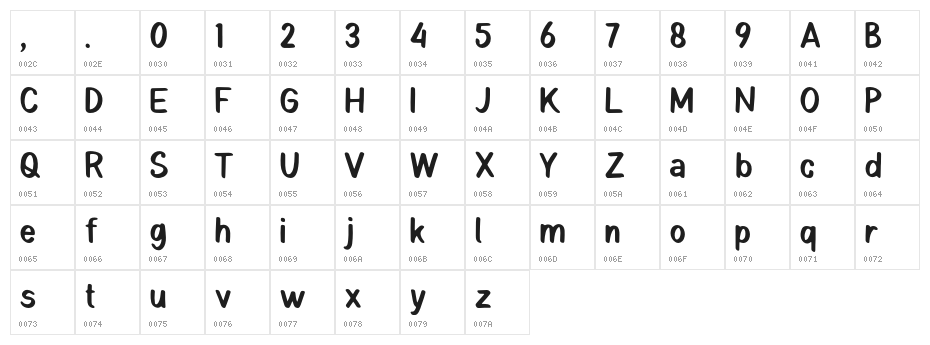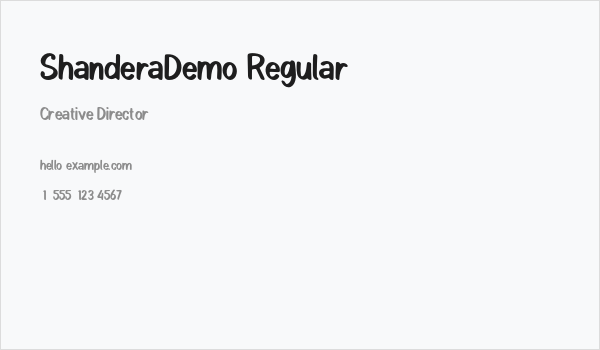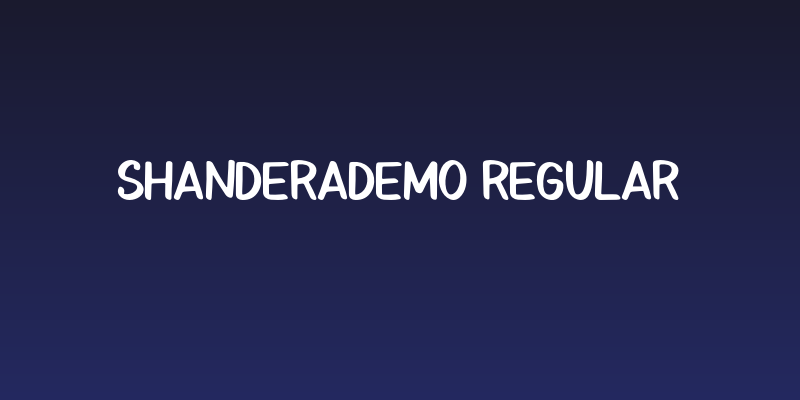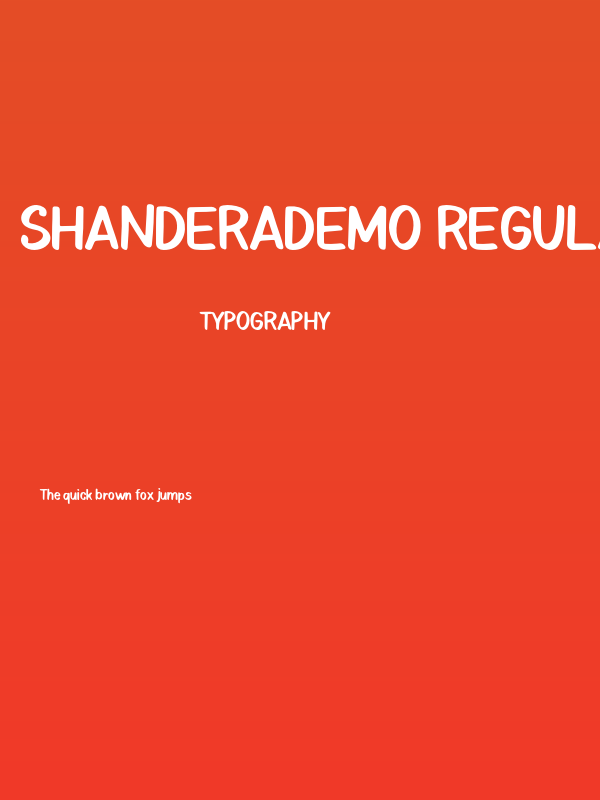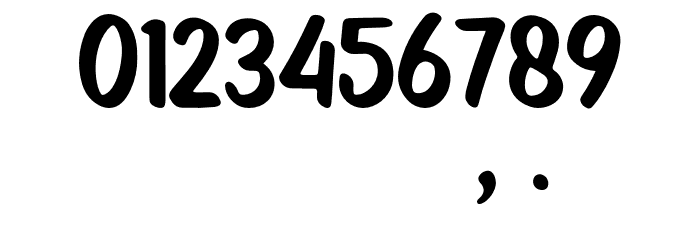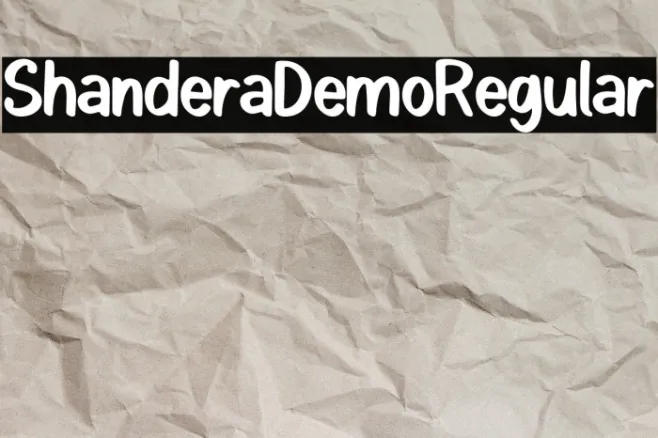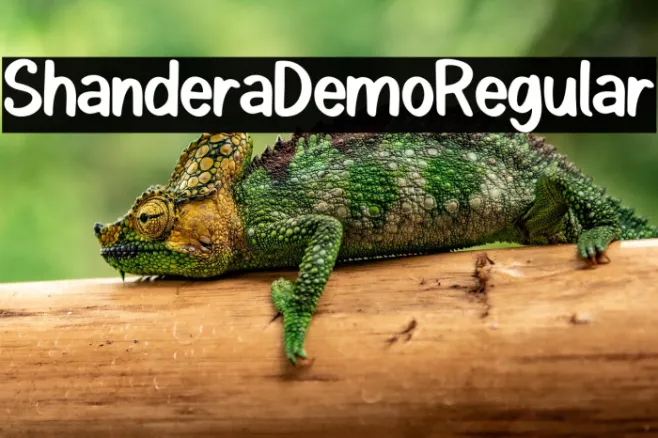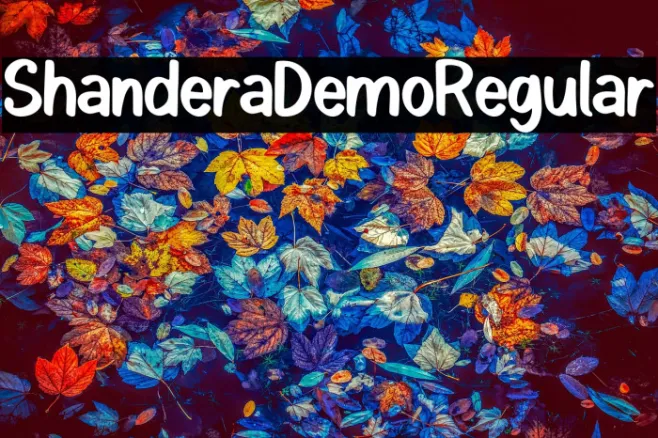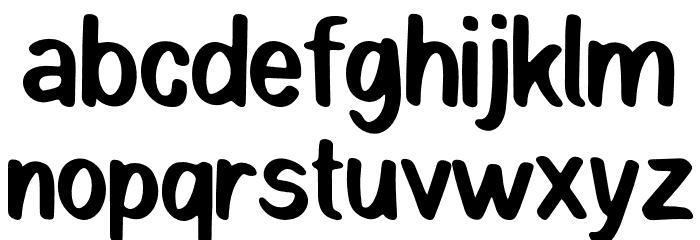
ShanderaDemo-Regular Font
ShanderaDemo-Regular Description
This font features a playful and rounded style with a hand-drawn appearance. The characters are bold and slightly irregular, giving it a casual and friendly look. The uppercase and lowercase letters maintain a consistent style, with smooth curves and a uniform thickness throughout. The numbers and special characters follow the same design principles, ensuring a cohesive appearance across all glyphs. This font is ideal for projects that require a touch of whimsy and approachability, making it suitable for children's books, playful branding, and informal communications.
| Proposed Projects | Children's books, playful branding, informal communications, greeting cards. |